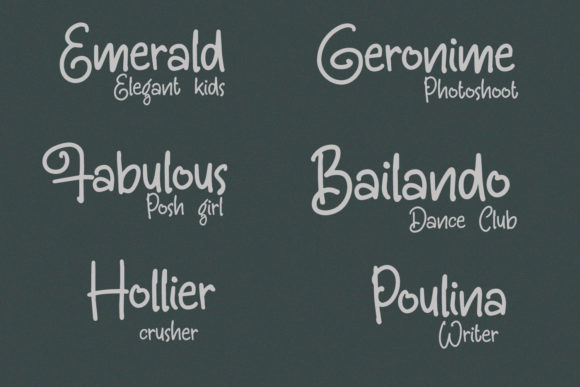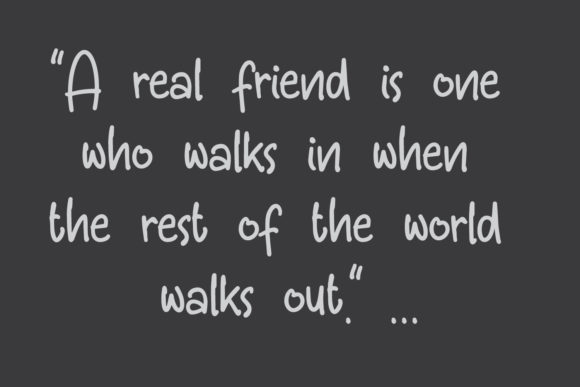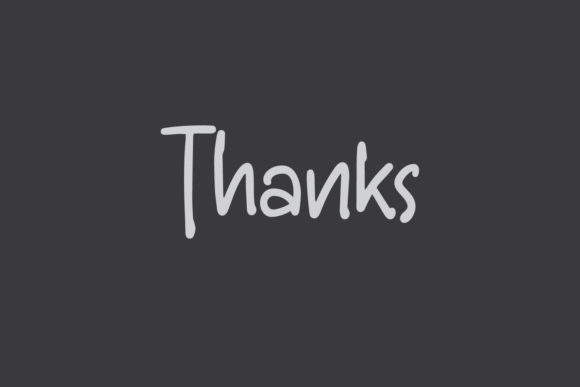
Introduction to Orphite Font
As a designer, you know that sometimes the best ideas strike in the most unexpected moments. For me, it was while sipping coffee and brainstorming for a creative project that the perfect font popped into my mind – Orphite Font. Its unique, handwritten style immediately caught my attention, and I couldn’t wait to explore its possibilities.
With its natural and organic feel, Orphite Font has become a staple in my design arsenal. Its versatility makes it a valuable resource for designers looking to add a personal touch to their work. Whether you’re working on a high-quality brochure, a website with a transparent background, or a social media graphic, Orphite Font is sure to elevate your design to the next level.
- High-quality design with a unique aesthetic, perfect for creative projects requiring a distinctive touch.
Honest Review: Orphite Font
As a designer, I’m always on the lookout for unique and high-quality design resources to elevate my creative projects. The Orphite Font is one such find that caught my attention.
What works well: ✨ The Orphite Font has a striking, modern aesthetic that lends itself perfectly to a variety of creative projects, from fashion branding to digital art. The font’s versatility is its greatest strength, allowing designers to experiment with different styles and themes.
- High quality: The font’s design is crisp and clean, ensuring that it looks great even at small font sizes.
However, there are some limitations to consider: ⚠️ The font may not be suitable for body text due to its ornate design, which can be overwhelming in large quantities. Additionally, some users may find the font’s complexity to be a challenge to work with.
Overall, the Orphite Font is a valuable addition to any designer’s toolkit. Its unique design and flexibility make it an excellent choice for creative projects, and its free download makes it an accessible resource for designers of all levels.
The Orphite Font is ideal for a variety of creative projects, including logos, business cards, and brochures. It’s also a great design resource for social media graphics, presentations, and reports. With its high-quality design and transparent background option, the Orphite Font is a versatile and useful tool for designers and non-designers alike.